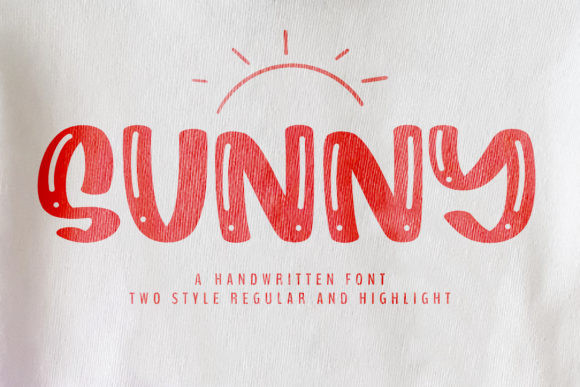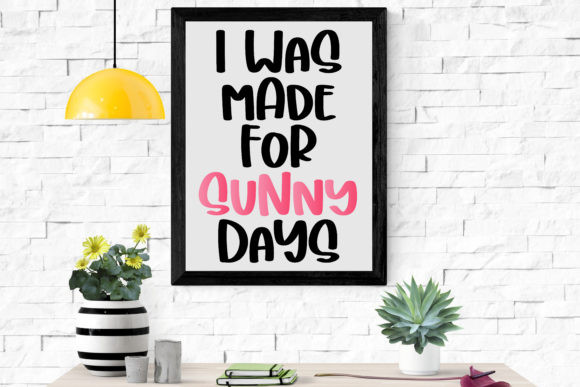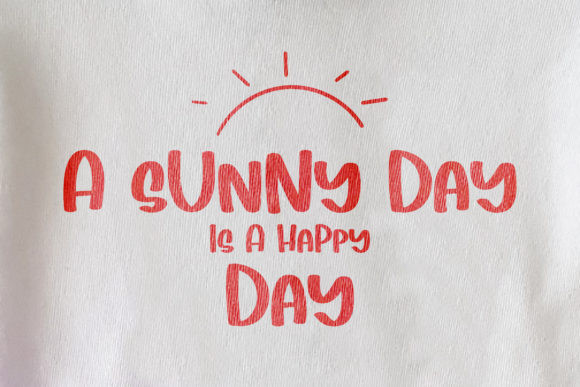
Sunny Font
Sunny is a bold and colorful display font. Its friendly feel makes this font incredibly versatile, fitting a wide range of contexts. Add it to your creative ideas and notice how it makes them stand out!